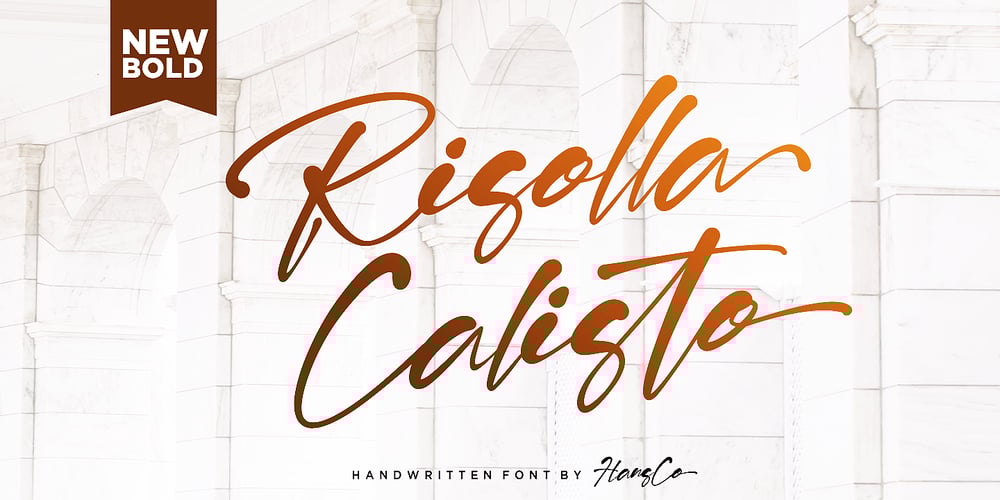
Risolla Calisto Font Family was designed by Burhan Afif and published by HansCo. Risolla Calisto contains 1 styles and family package options. Risolla Calisto is an elegant handwritten font with a little bold style also stay look clean and modern. This font carries a slightly masculine feel while still working on a background with a feminine theme. This font come with many ligature style that give you a sleek, elegant look for your logos, business card, wedding invitations, quotes, advertisements, and more. Highly recommended to use it in OpenType capable software – there are plenty out there nowadays as technology catches up with design. The OpenType features can be accessed by using programs such as Adobe Illustrator, Adobe InDesign, Adobe Photoshop Corel Draw X version, Afinity and more. Let’s create something beautiful today with Golden Stanbury.Enjoy!